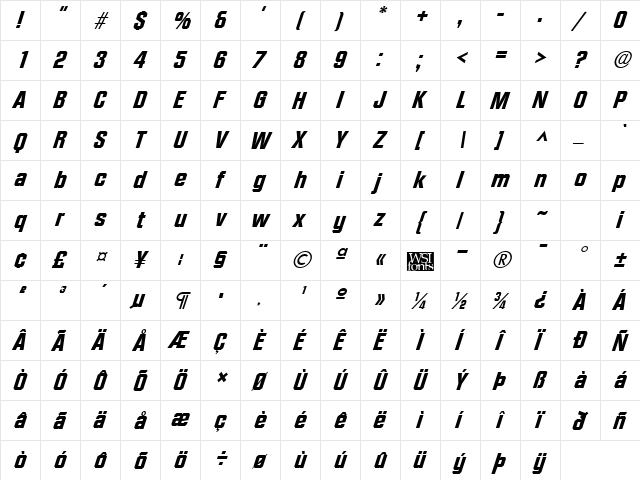
FacetHeavy-Xitalic Regular
Design Context for FacetHeavy-Xitalic Typeface
FacetHeavy-Xitalic offers clean, dependable letterforms without strong stylistic allegiance, making it a practical choice for designers who need flexibility. Its italic angle brings a sense of urgency and motion to the letterforms.
Pro Tip: Try FacetHeavy-Xitalic for annotation and caption copy alongside an upright companion — the contrast in angle creates a dynamic but ordered typographic system.